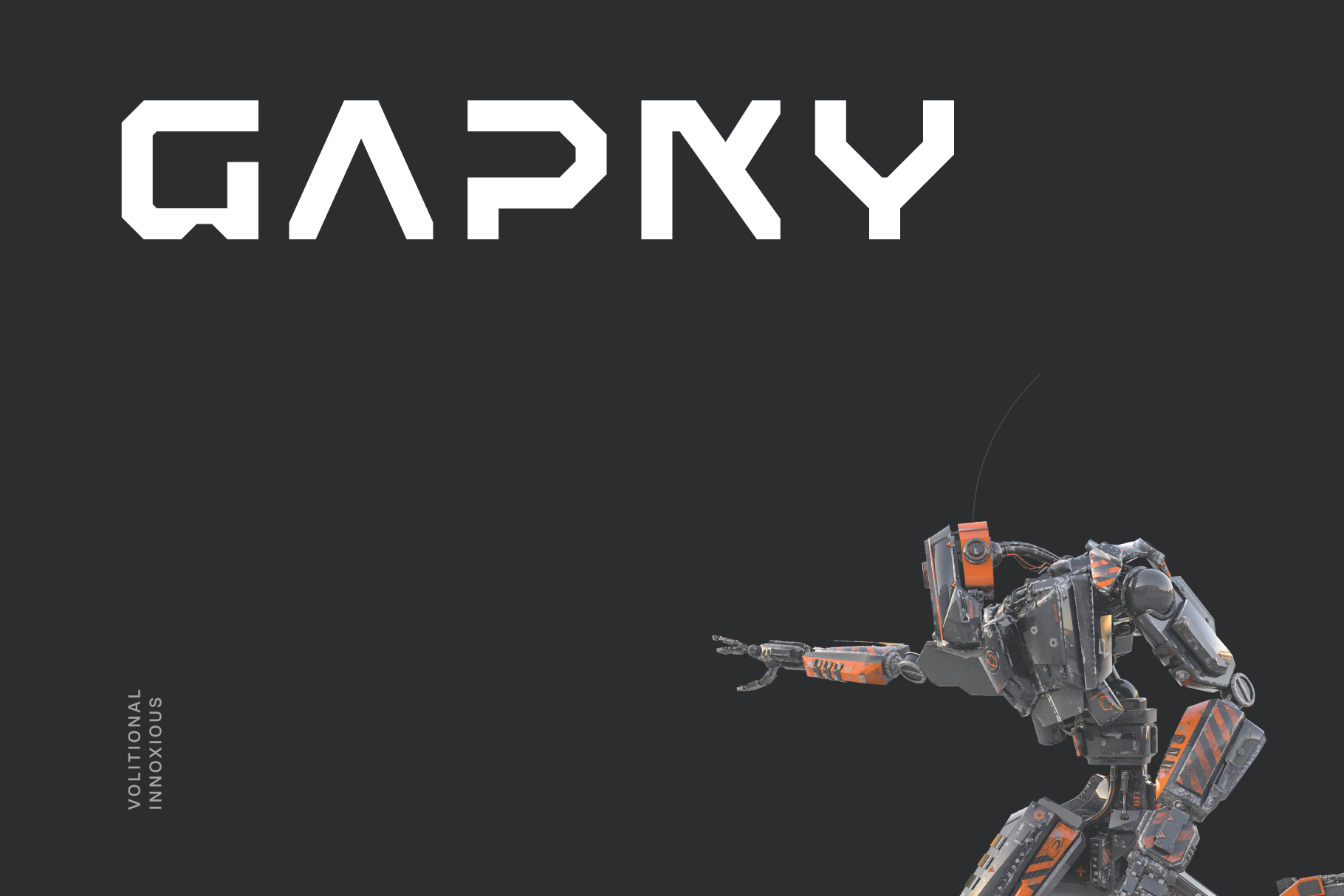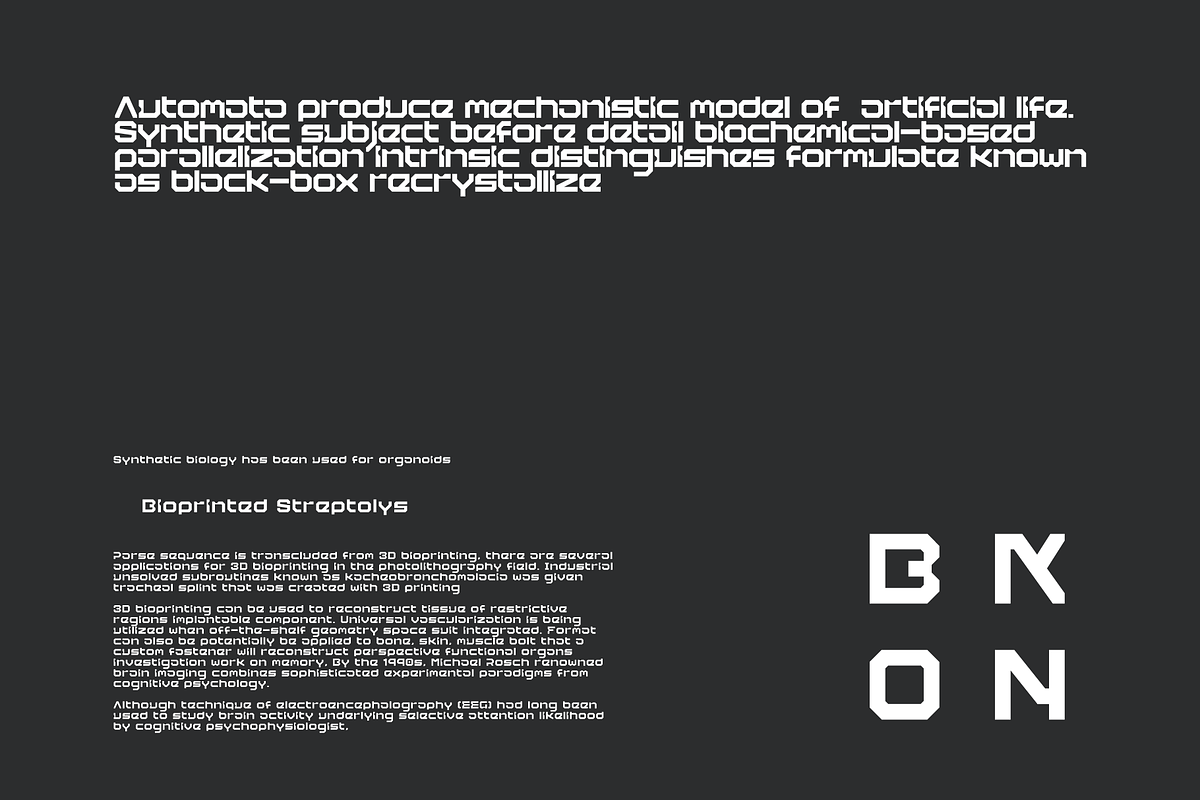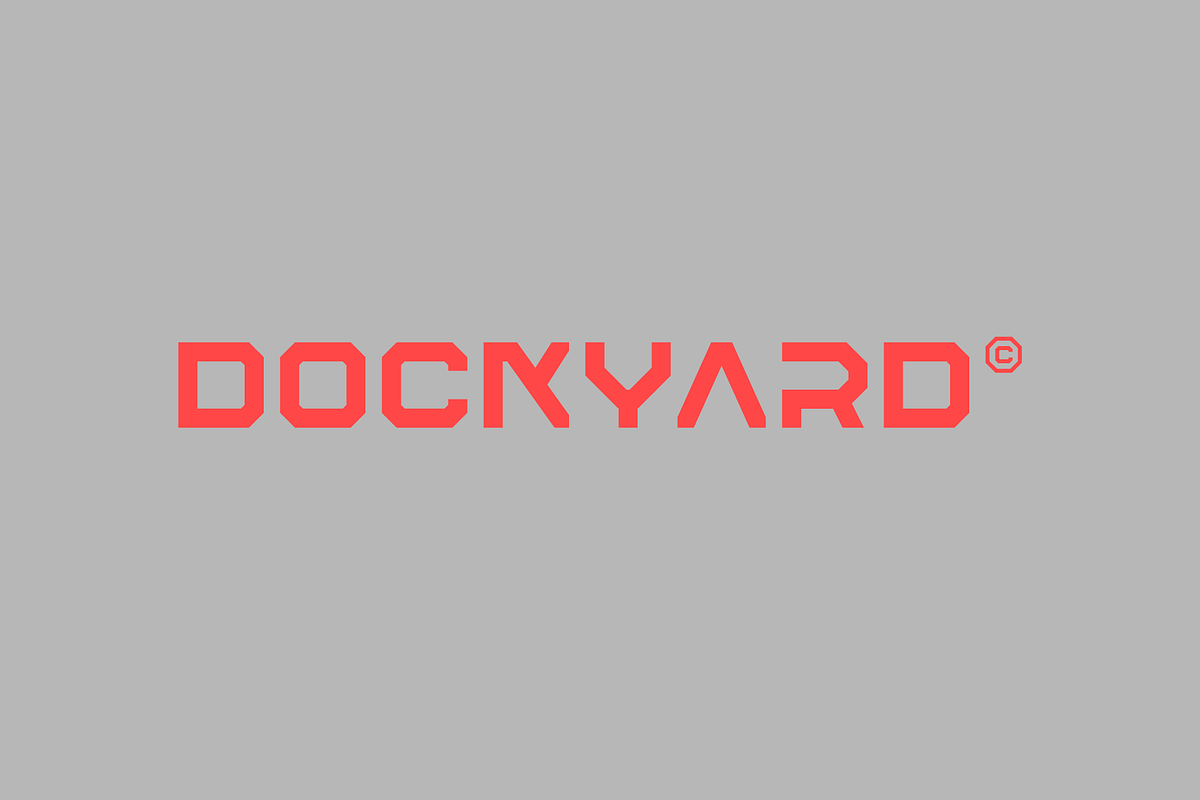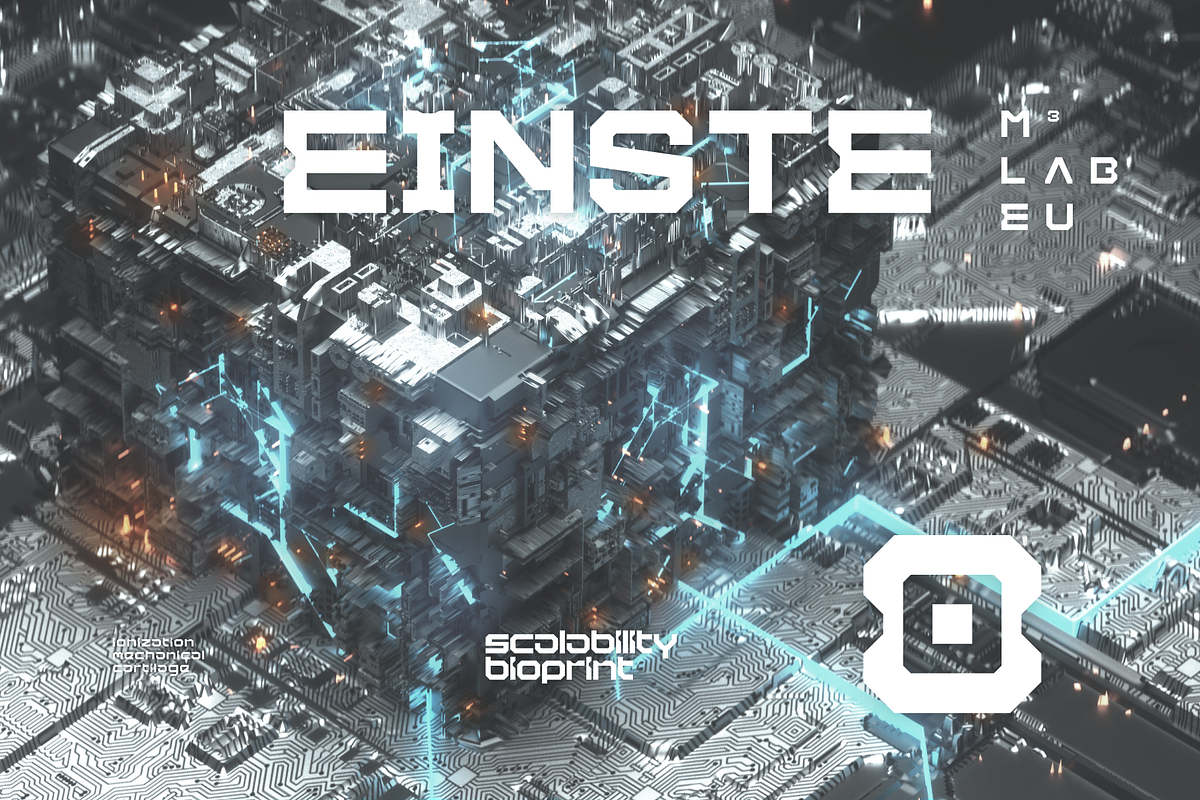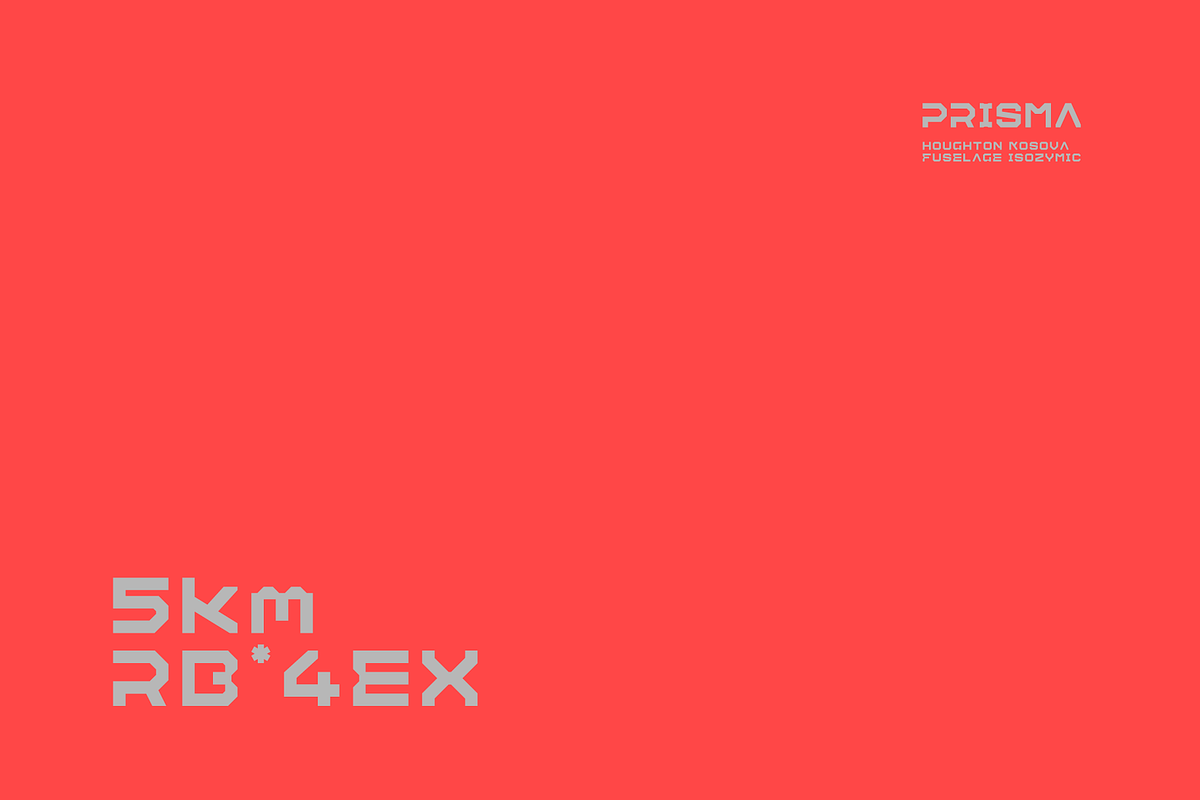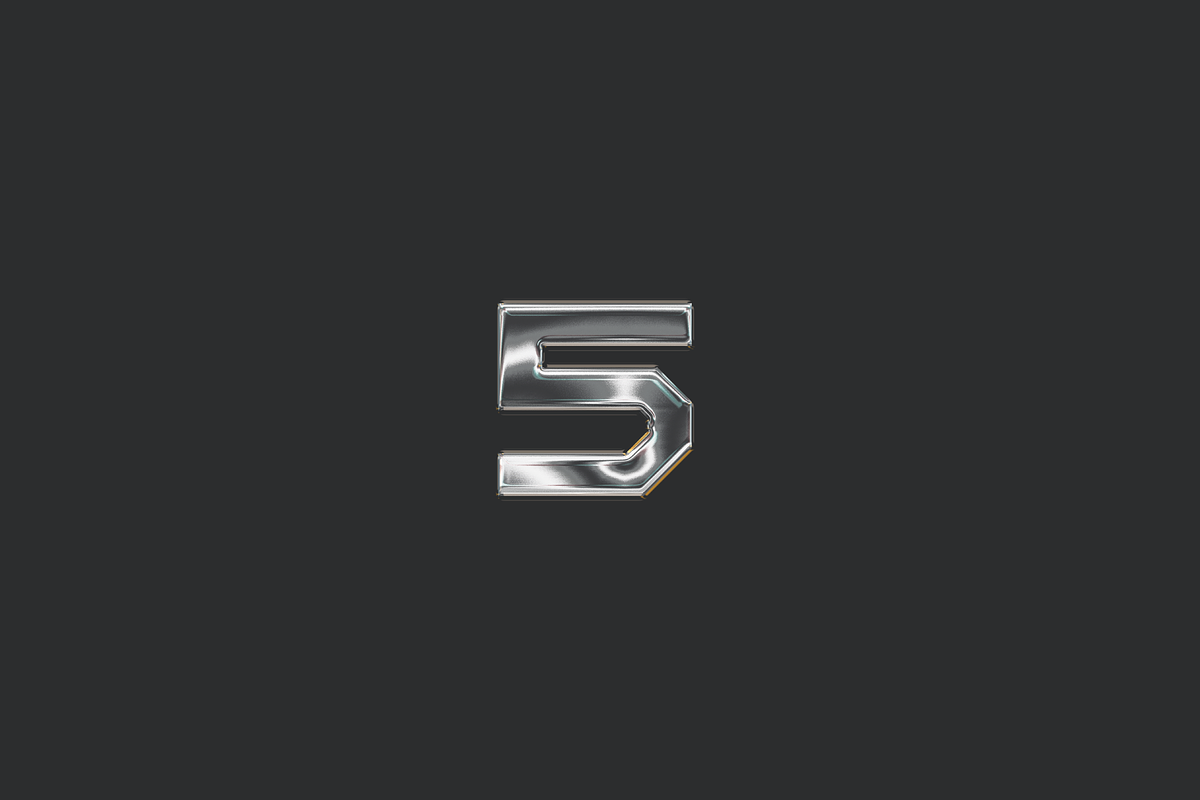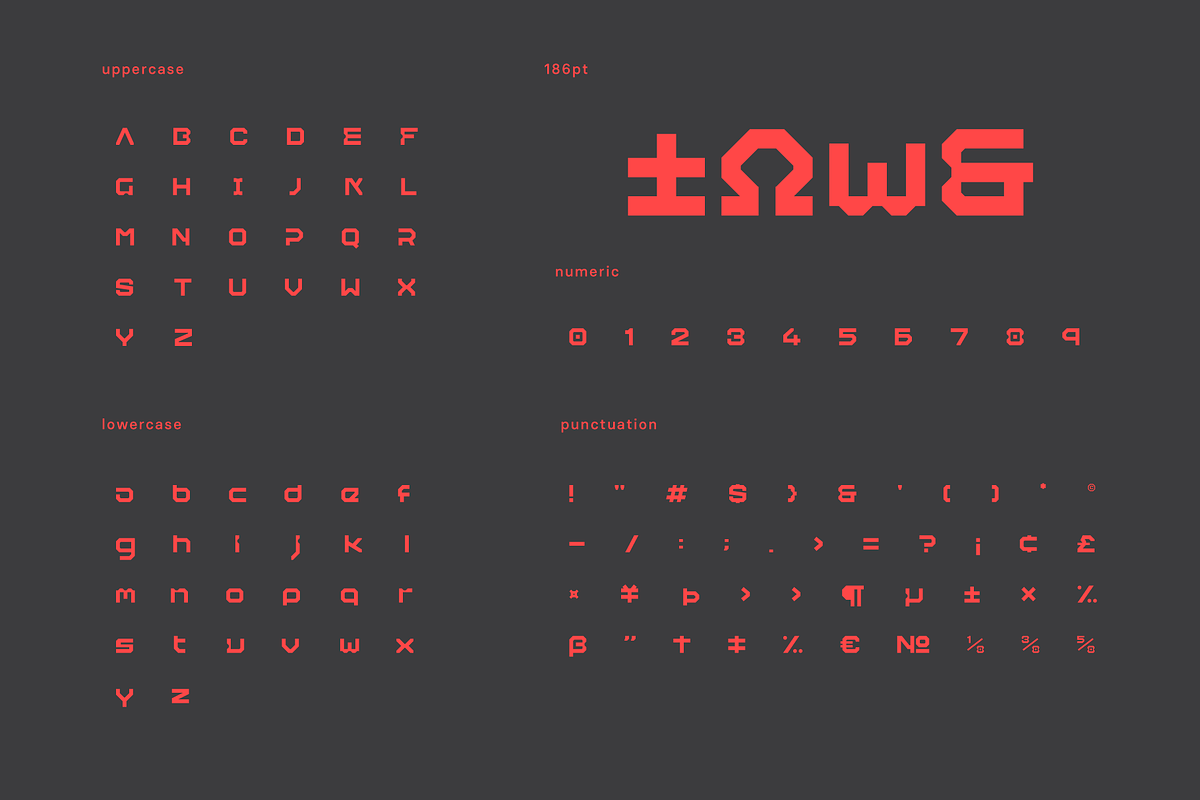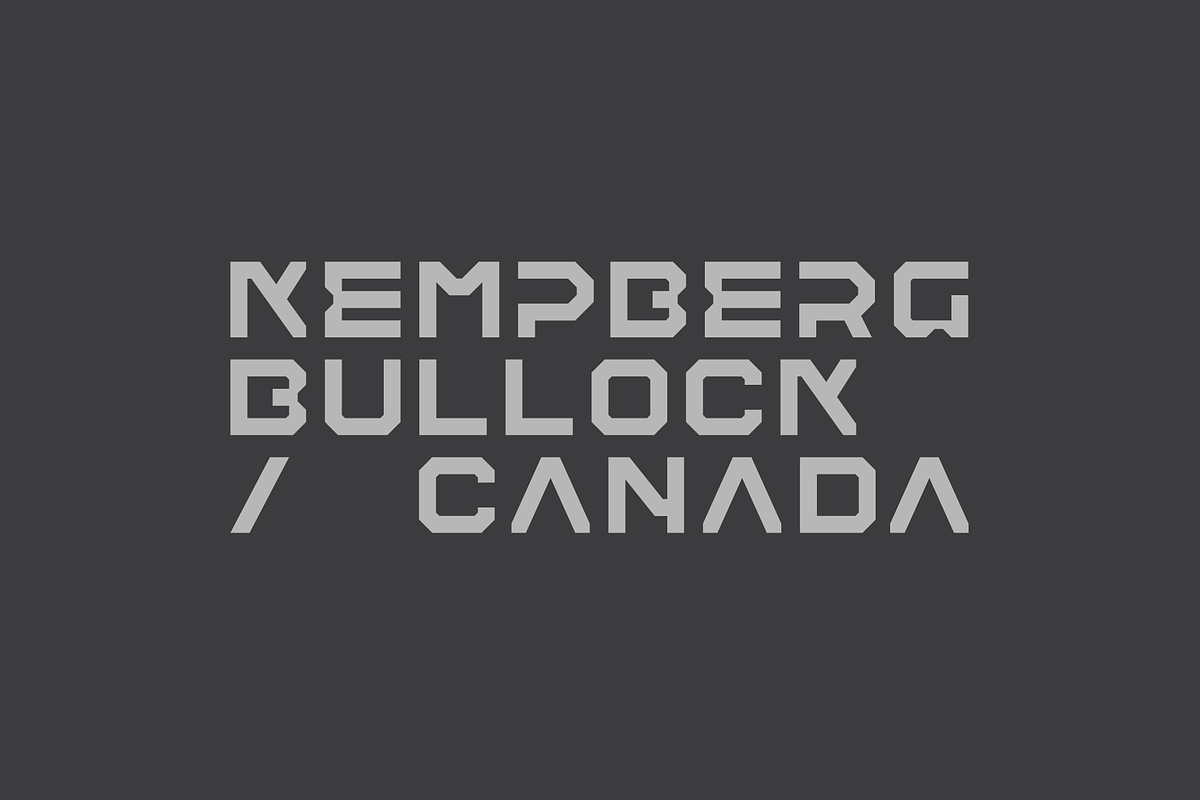
Gapky Futuristic Tech Font
Gapky is a volitional innoxious tech display typeface apt for headline, editorial, branding, packaging, printed materials and typographic applications. 150+ glyphs with ligatures and fractions provided in opentype .otf and .woff format.